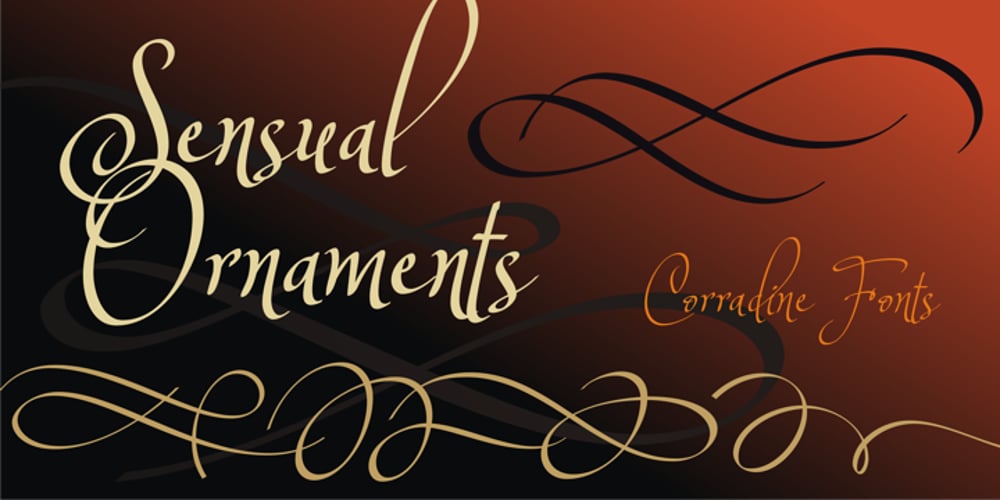
Sensual
Sensual font
Sensual Font Family was designed by Manuel Eduardo Corradine and published by Corradine Fonts. Sensual contains 6 styles and family package options. Sensual is ideal for invitations, greeting cards, logotypes, or anywhere a touch of elegance is desired.